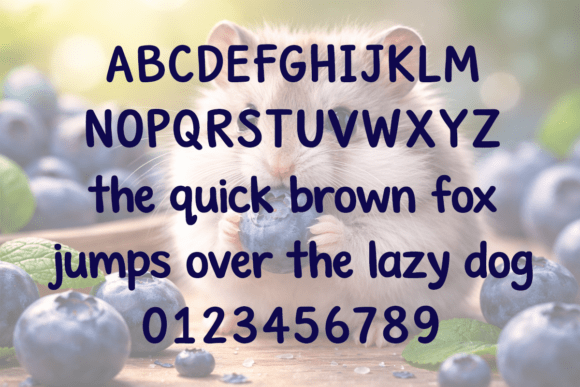
Berry the Hamster Font: A Delightful Addition to Your Design Projects
Are you looking for a font that can add a touch of warmth and familiarity to your design projects? Look no further than the Berry the Hamster display font. This handwritten creation is a perfect blend of simplicity, legibility, and cuteness, making it an ideal choice for designers and crafters who want to give their projects a friendly and inviting touch.
Handwritten fonts have always been a popular choice among designers, and for good reason. They offer a level of personal charm and character that is hard to replicate with more formal fonts. The Berry the Hamster font is no exception. Its handwritten nature gives it a unique and endearing quality that is sure to capture the hearts of your audience.
What Makes Berry the Hamster Font Special?
So, what sets Berry the Hamster apart from other fonts? Here are a few key features that make it a standout choice:
- Simplicity: Despite its playful nature, Berry the Hamster is surprisingly simple and easy to read. This makes it perfect for use in a variety of design projects, from titles and headings to body text.
- Legibility: The font’s clear and consistent lettering ensures that your text is always easy to read, even at smaller sizes.
- Cuteness: Let’s face it – Berry the Hamster is just plain cute! Its playful, handwritten nature gives it a charming quality that is sure to delight your audience.
Using Berry the Hamster in Your Design Projects
Berry the Hamster is a versatile font that can be used in a wide range of design projects. Here are a few ideas to get you started:
- Branding: Use Berry the Hamster as a logo font or in your brand’s marketing materials to give your brand a friendly and approachable feel.
- Packaging: Add a touch of whimsy to your product packaging with Berry the Hamster. It’s perfect for labels, tags, and other packaging materials.
- Web Design: Use Berry the Hamster as a display font on your website to add a touch of personality and charm.
- Crafting: If you’re a crafter, Berry the Hamster is a great choice for your handmade projects. Use it to add a personal touch to your craft labels, packaging, and marketing materials.
Tips for Getting the Most Out of Berry the Hamster
Here are a few tips to help you get the most out of Berry the Hamster:
- Use it sparingly: While Berry the Hamster is a beautiful font, it’s best used sparingly. Use it for headings, titles, and other key elements, and pair it with a more formal font for body text.
- Experiment with colors: Berry the Hamster looks great in a variety of colors, so don’t be afraid to experiment and find the perfect hue for your project.
- Pair it with other fonts: Berry the Hamster pairs well with a variety of other fonts, so feel free to get creative and try out different combinations.
In conclusion, Berry the Hamster is a delightful font that is sure to bring a touch of warmth and personality to your design projects. Its handwritten nature, simplicity, and legibility make it a versatile choice that can be used in a wide range of applications. Whether you’re a designer, crafter, or simply someone who loves working with fonts, Berry the Hamster is definitely worth checking out.